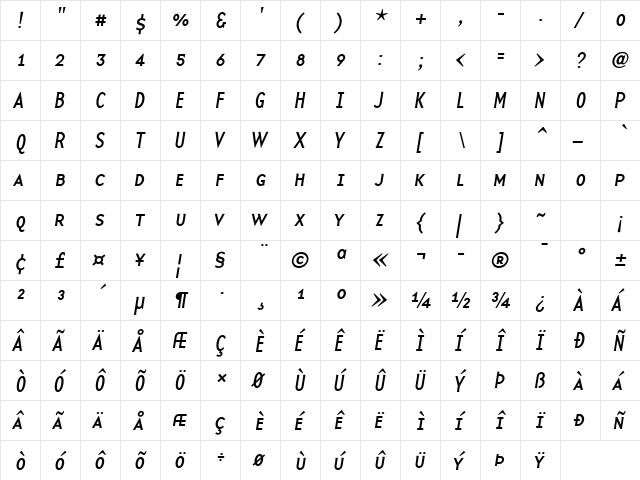
BaseTwelveSansSCI Roman
Design Context for BaseTwelveSansSCI Typeface
BaseTwelveSansSCI offers clean, dependable letterforms without strong stylistic allegiance, making it a practical choice for designers who need flexibility.